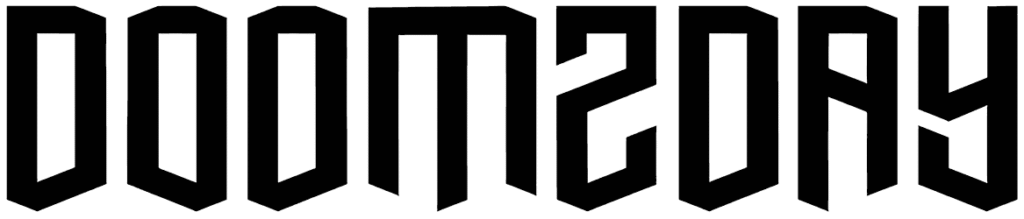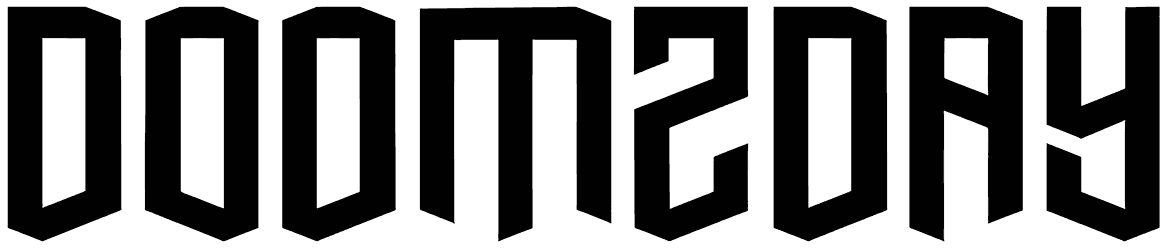
Doomzday Font
When you set a display font like the present item on the words of your design, they can become more impressive and memorable. The Doomzday font has distinct geometric letters that have a modern feeling. No offer for lowercase letters, but this gothic font supports two versions of capitals and you can use them for the title of a futuristic movie poster or anything else.